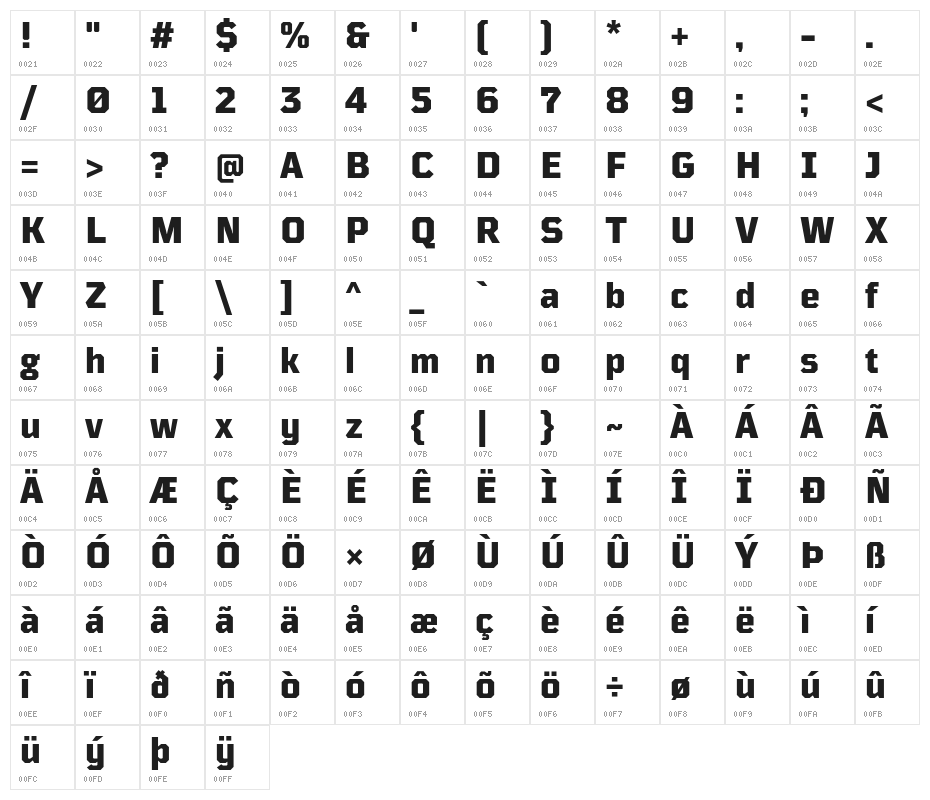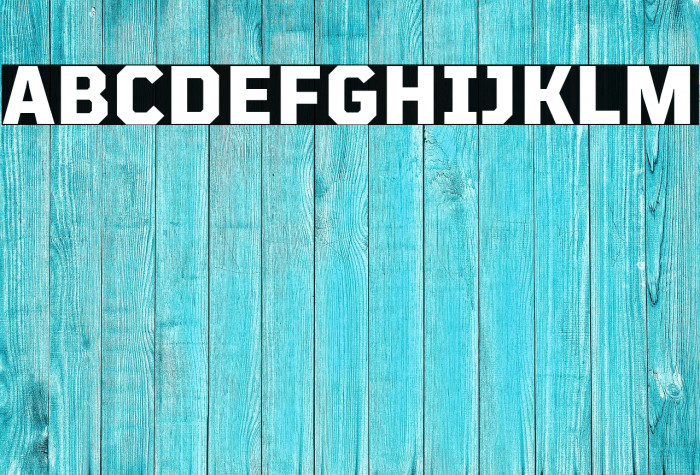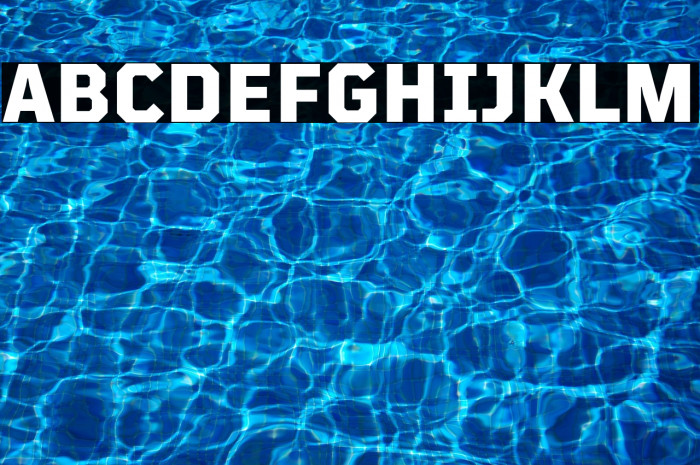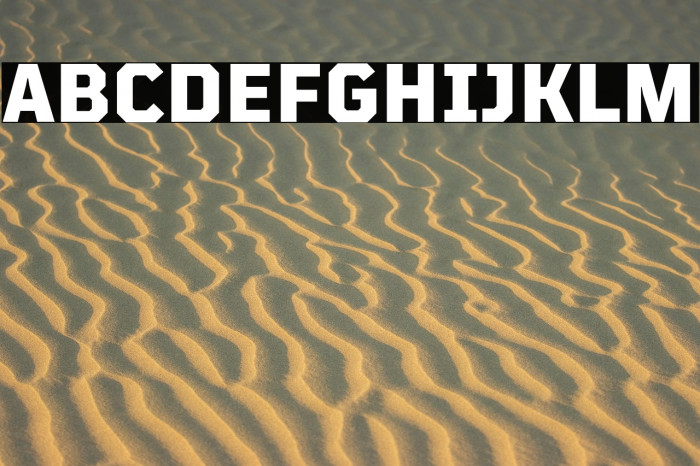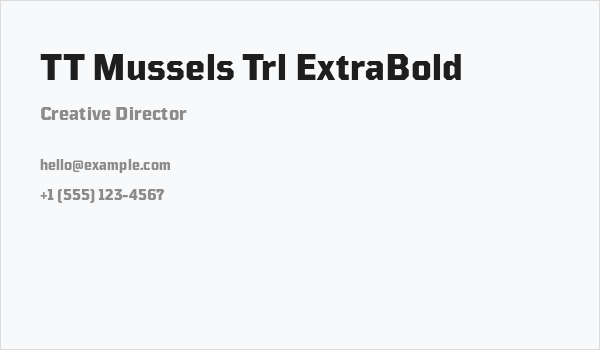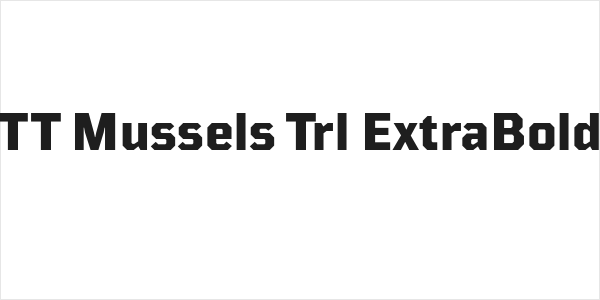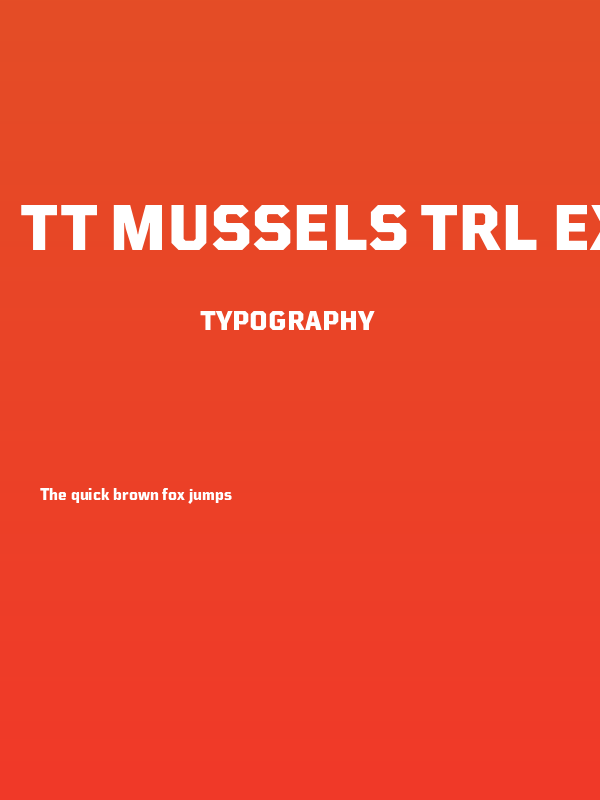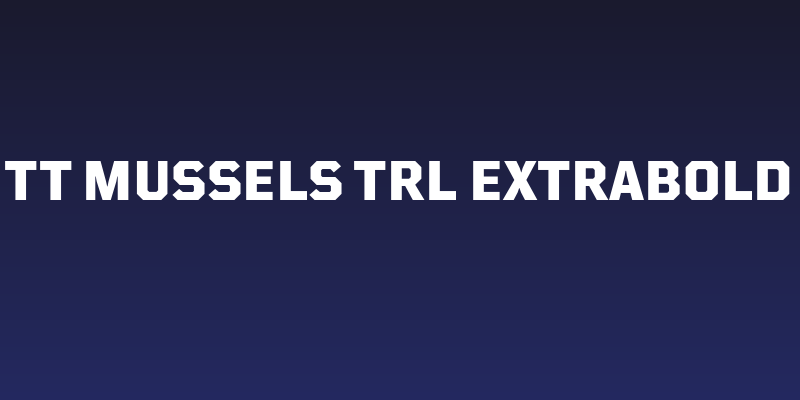
TT Mussels Trl ExtraBold Font
TT Mussels Trl ExtraBold Description
This font features a bold and striking design with a geometric and angular appearance. The characters are constructed with sharp edges and a uniform thickness, giving it a strong and impactful presence. The uppercase and lowercase letters maintain a consistent style, with a slightly condensed form that enhances its boldness. The numerals and special characters are designed to match the overall aesthetic, ensuring a cohesive look across all elements. This font is ideal for projects that require a modern and assertive typeface.